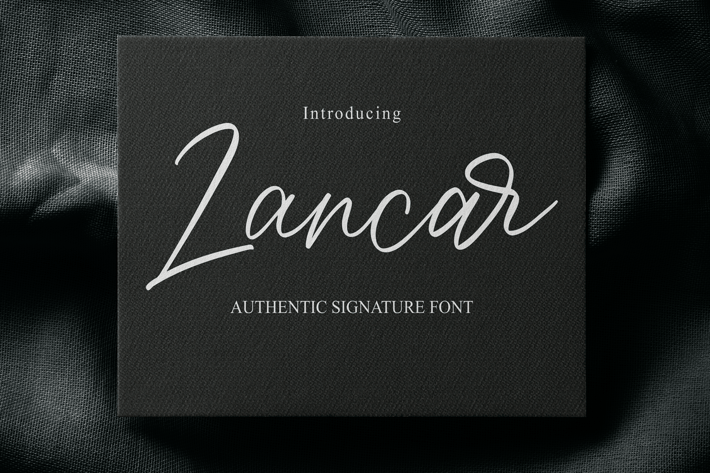
Lancar - Authentic Signature Font
Lancar is a unique, elegant and modern handwriting font. that looks like a signature, this font is intentionally made with unique and alternating ligatures. This style of hand display makes it perfect for use in all your design projects whether it's logo, label, packaging design, blog title, poster, wedding designs, social media posts, Instagram design.